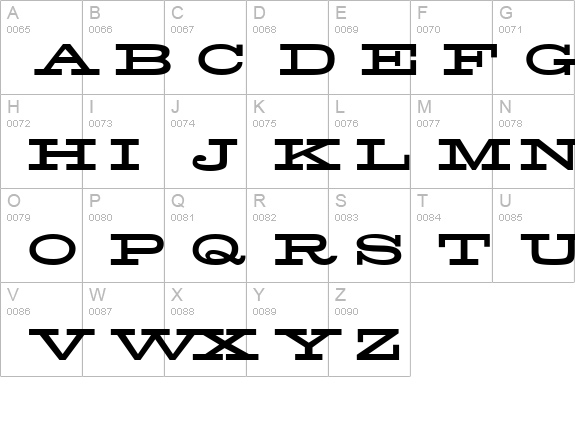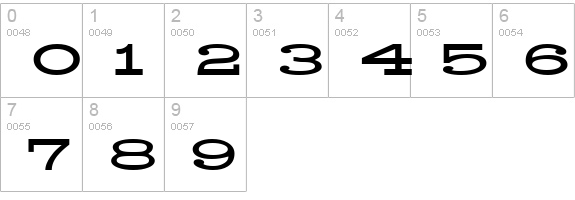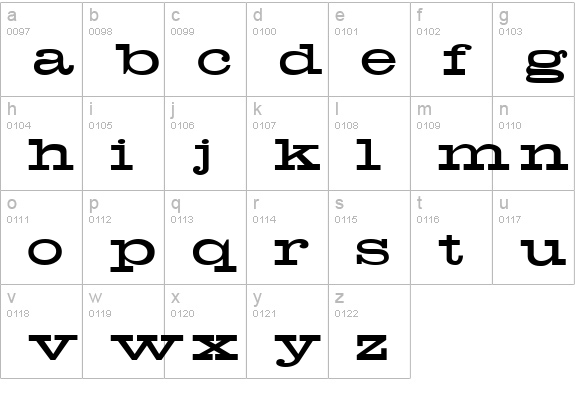
Hefty Regular is the standard, neutral variant in the Hefty typeface family \xE2\x80\x94 well suited to general body text, paragraphs, and standard typographic work.
Hefty Regular font is a versatile and elegant typeface that exudes professionalism and sophistication. With its clean lines and classic letterforms, this font is perfect for a wide range of design projects, from branding and editorial design to websites and print materials. The beauty of Hefty Regular font lies in its simplicity and readability. Each letter is carefully crafted to ensure legibility at any size, making it ideal for both headings and body text. The balanced proportions and subtle curves give this font a timeless appeal that will never go out of style. One of the best features of Hefty Regular font is that it is free. That's right, you can freely download this font at FontsMarket.com. This means that you can use it for both personal and commercial projects without any restrictions. Whether you're a professional designer or a hobbyist, having access to high-quality fonts like Hefty Regular font can greatly enhance your work and make it stand out from the crowd. So why wait? Download Hefty Regular font today and take your design projects to the next level. With its versatility, elegance, and the fact that it is freely available, this font is sure to become a staple in your font library. Don't miss out on the opportunity to add this exceptional typeface to your collection.